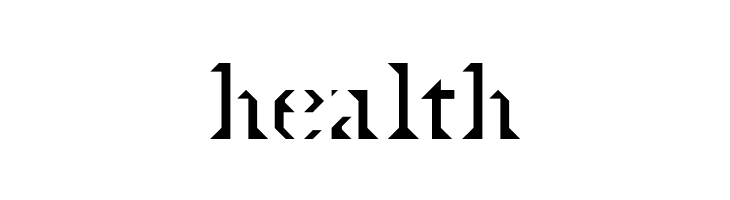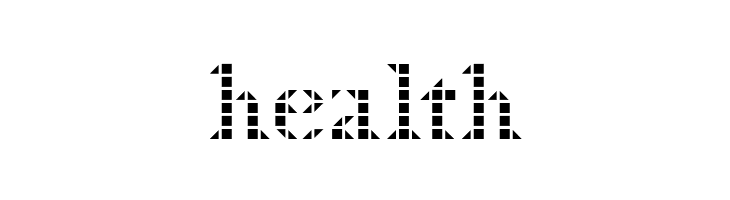
BDTimesNewDigitalSt-Bold Font
A bold, geometric font with a digital, pixelated style.
BDTimesNewDigital Font
A bold, geometric font with a futuristic, stencil-like design.
BDTimesNewDigitalSt Font
A pixelated, digital-style font with a modern, geometric design.
BDTimesNewDigitalBad Font
A fragmented, mosaic-style font with angular, dynamic characters.
BDTimesNewDigital-Bold Font
A bold, geometric font with a digital, futuristic style.